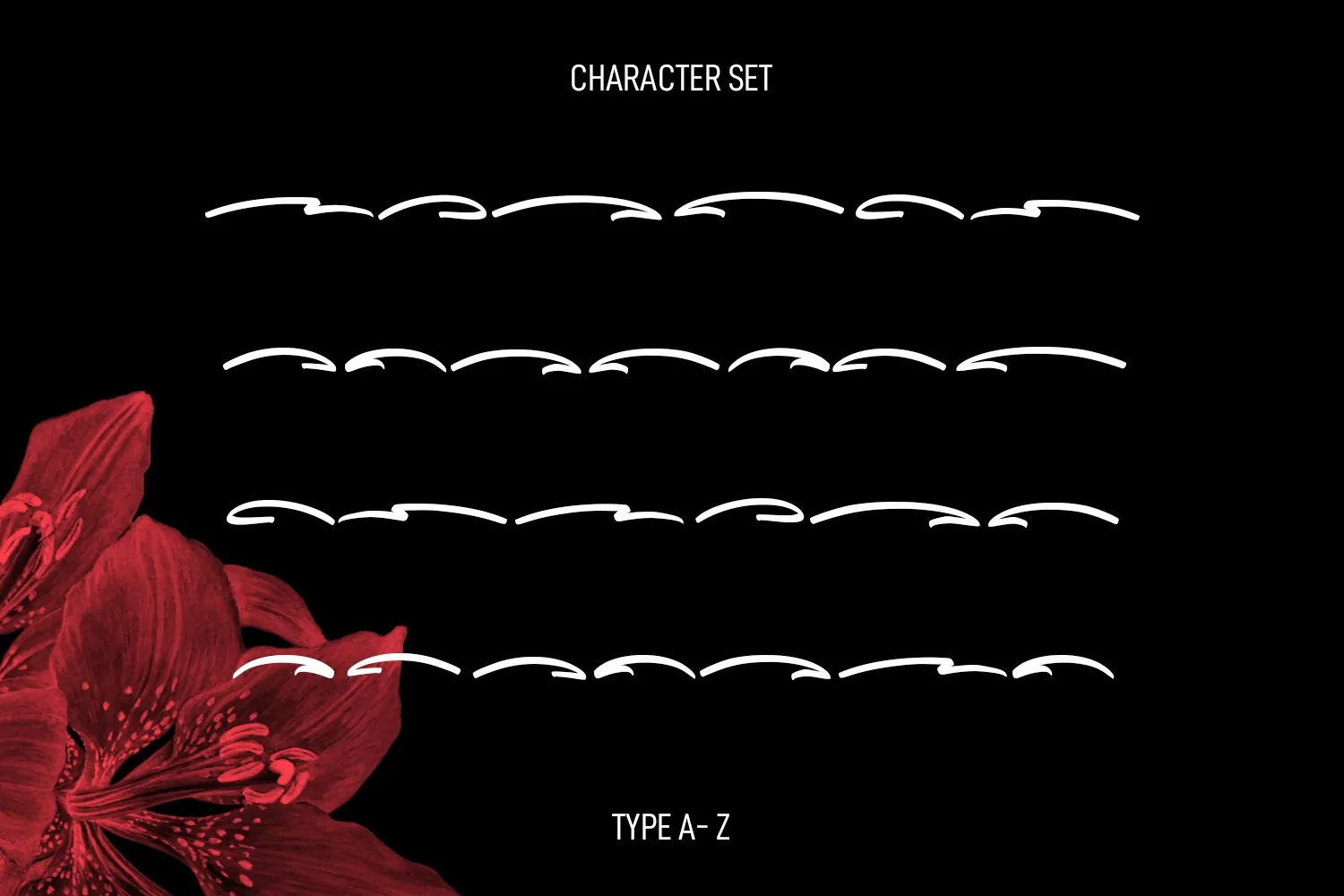
Ginloops is a fancy unique script font. With bold stroke, slanted and fun character with a bit of ligatures and extra swashes. To give you an extra creative work. Ginloops font support multilingual more than 100+ language. This font is good for logo design, Social media, Movie Titles, Books Titles, a short text even a long text letter and good for your secondary text font with sans or serif. Make a stunning work with Ginloops font.